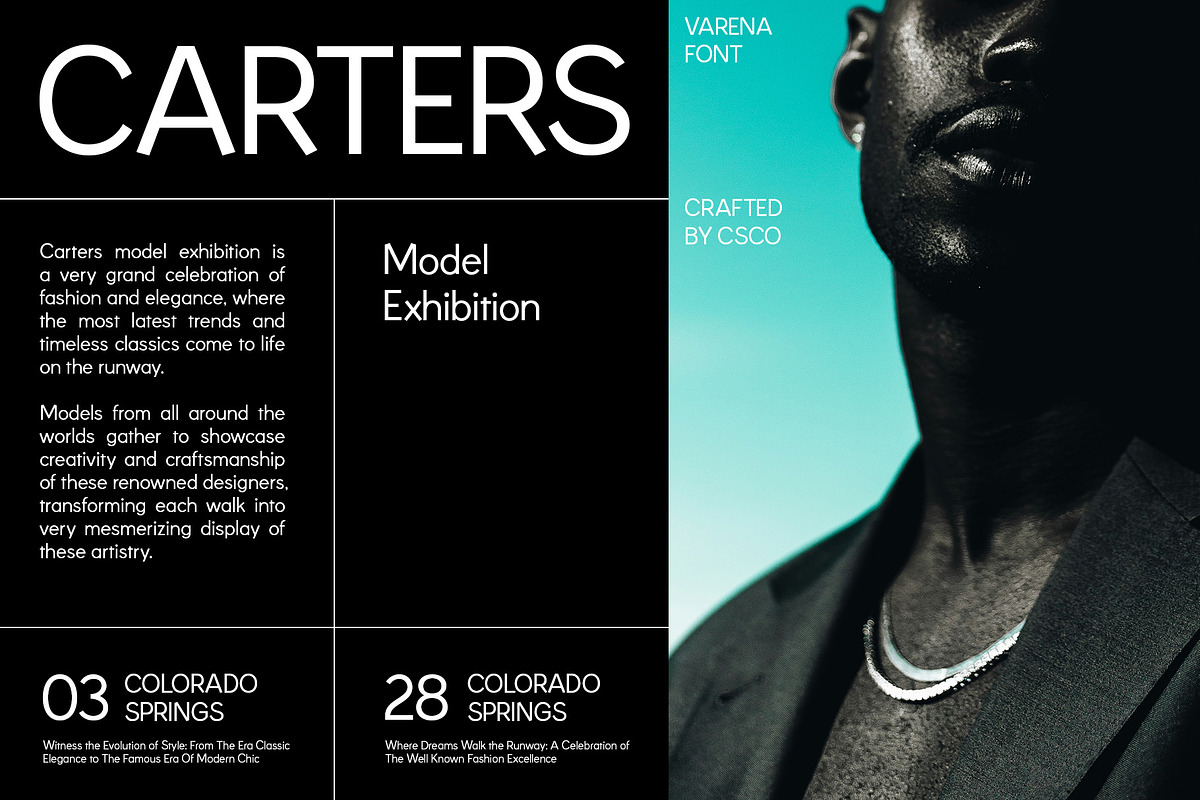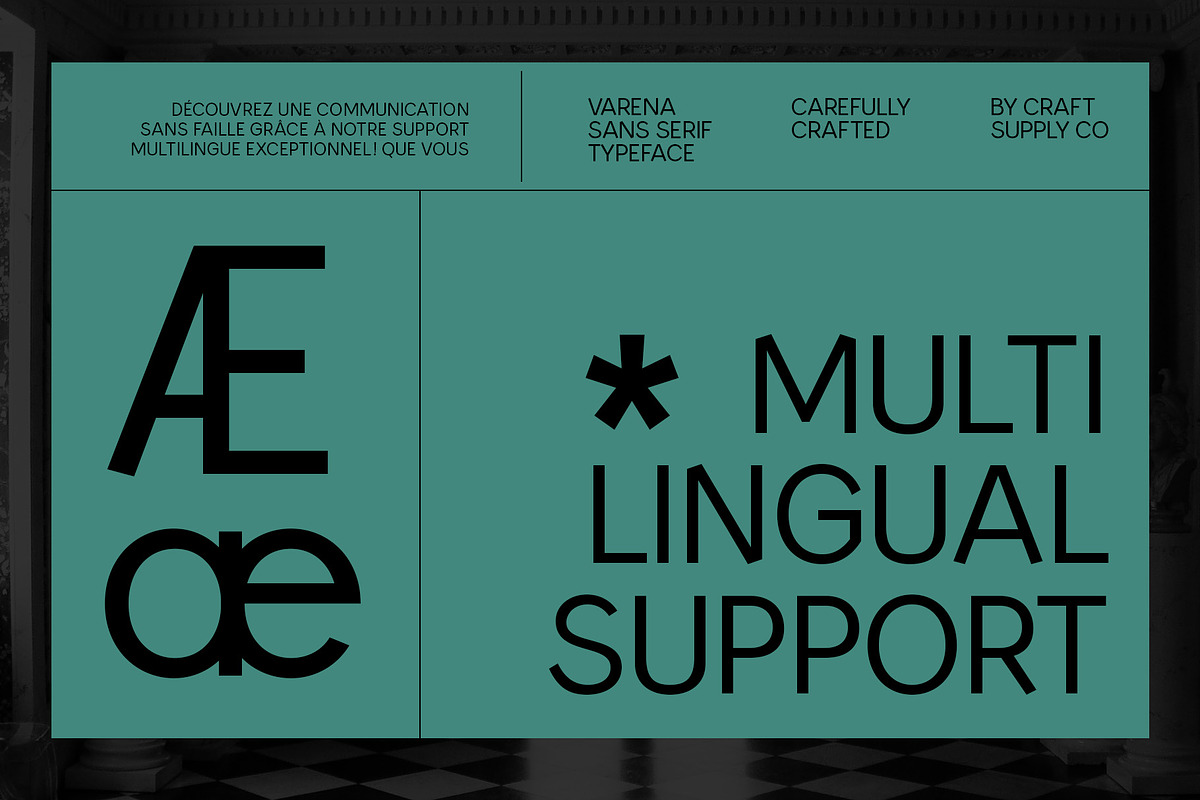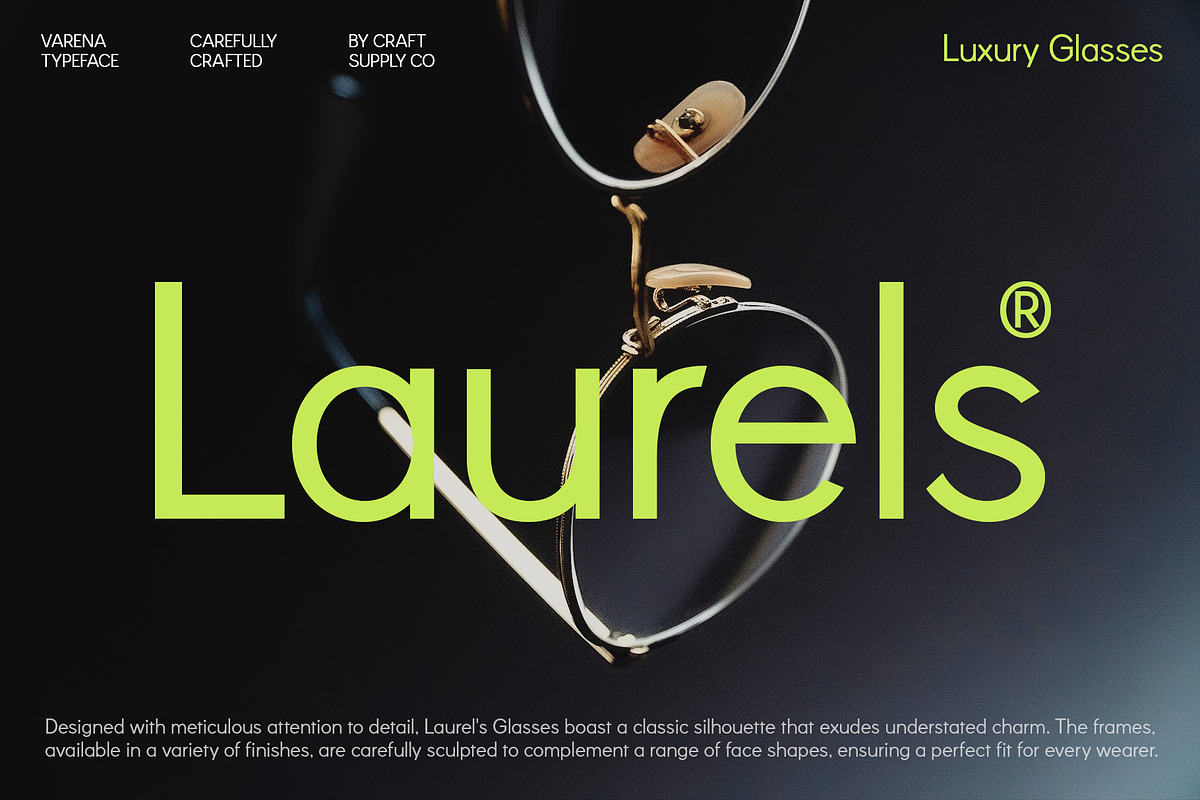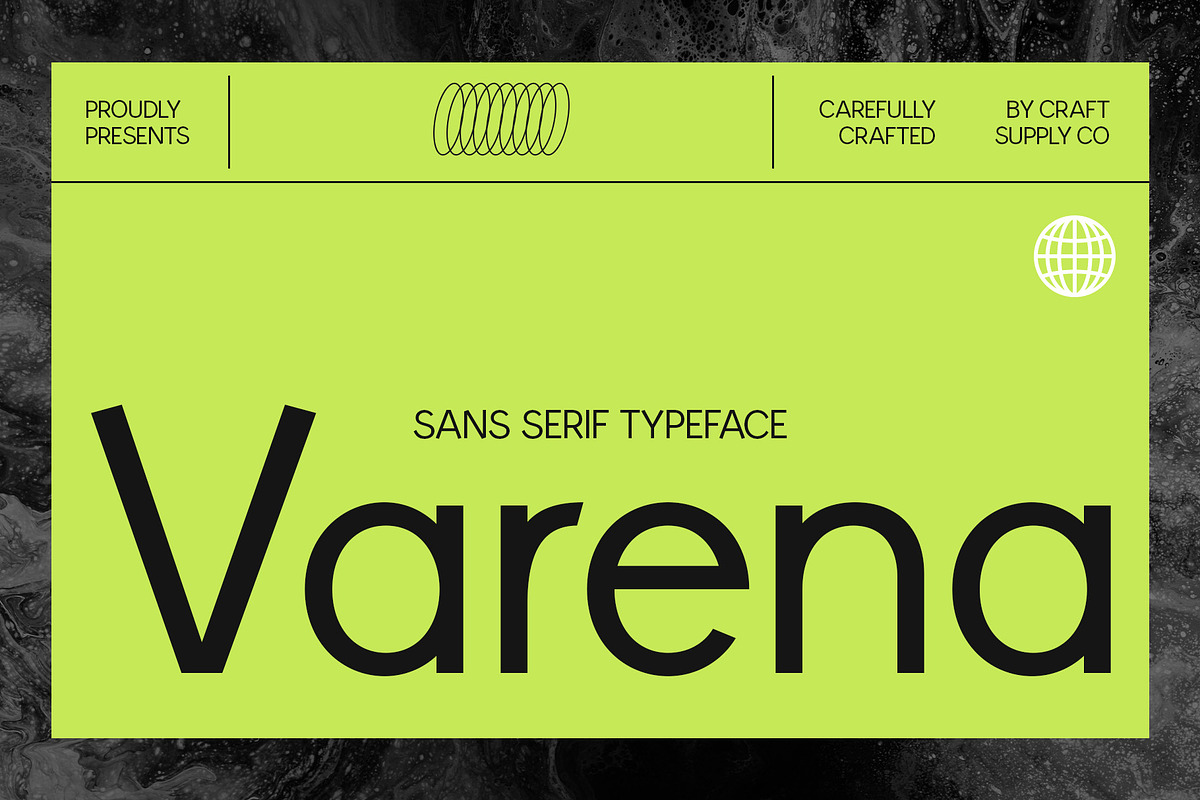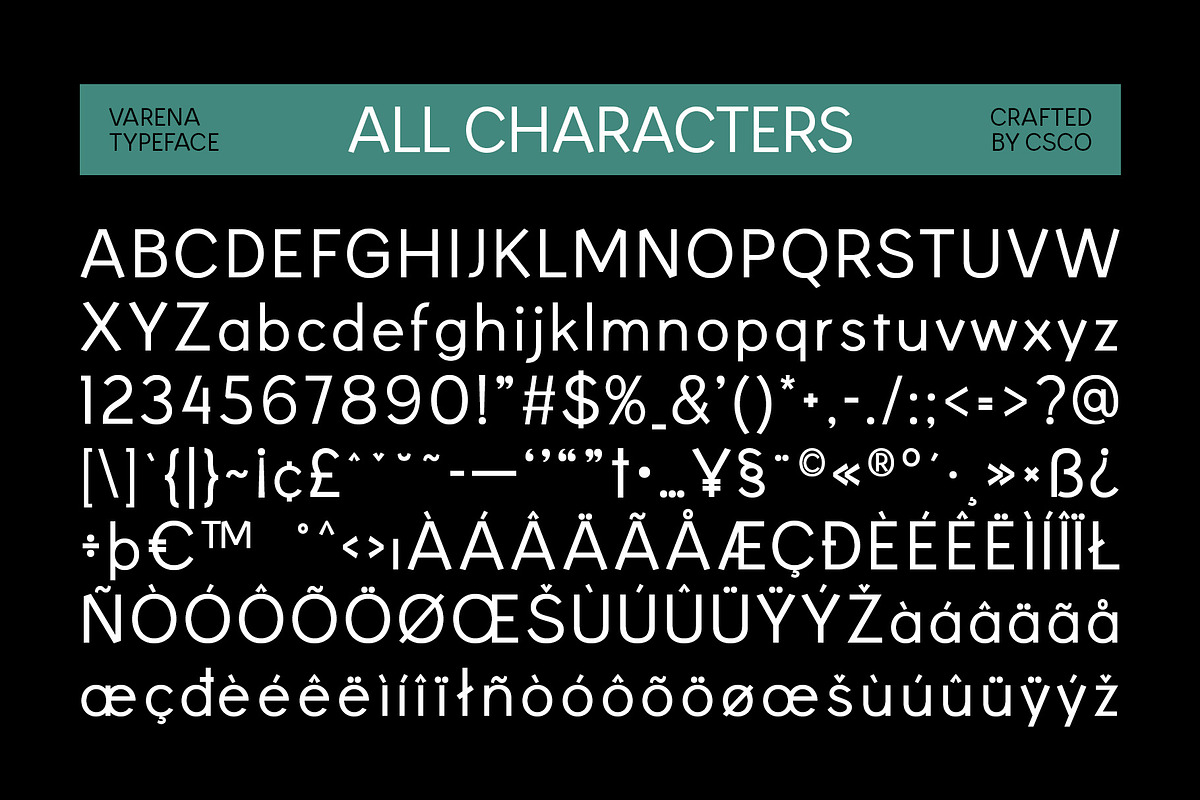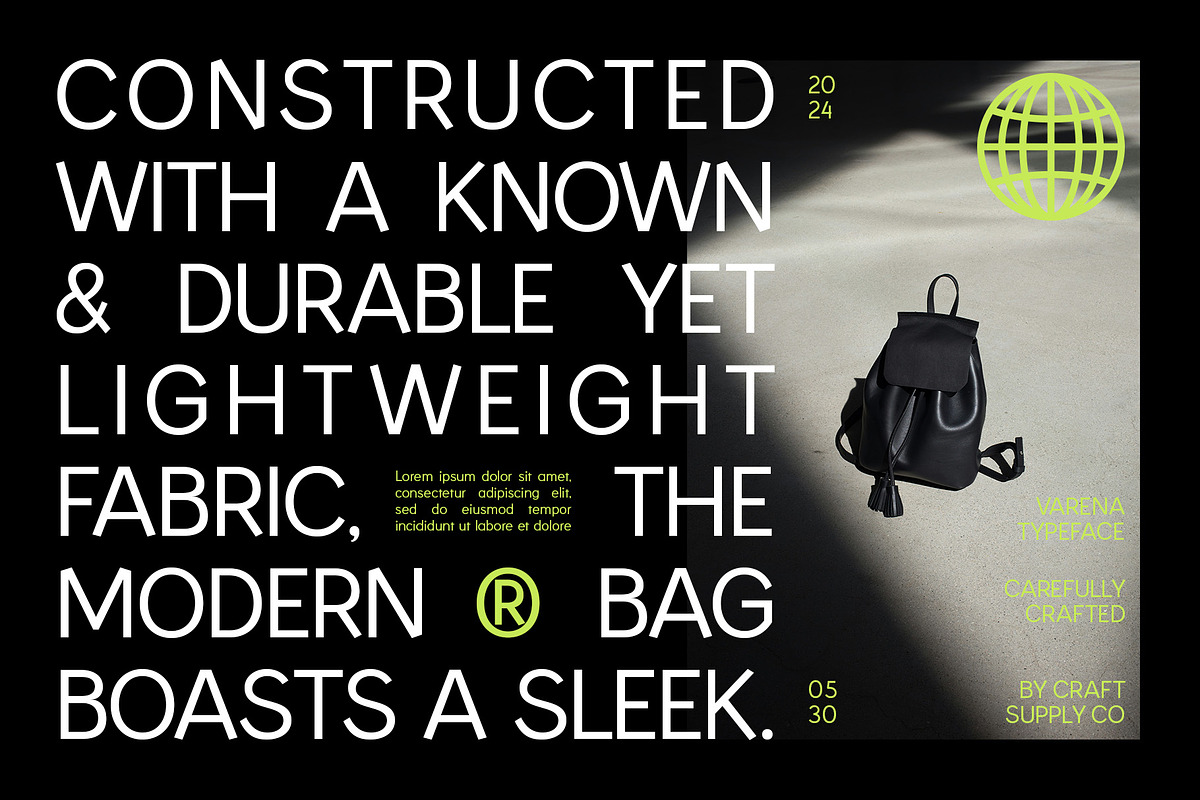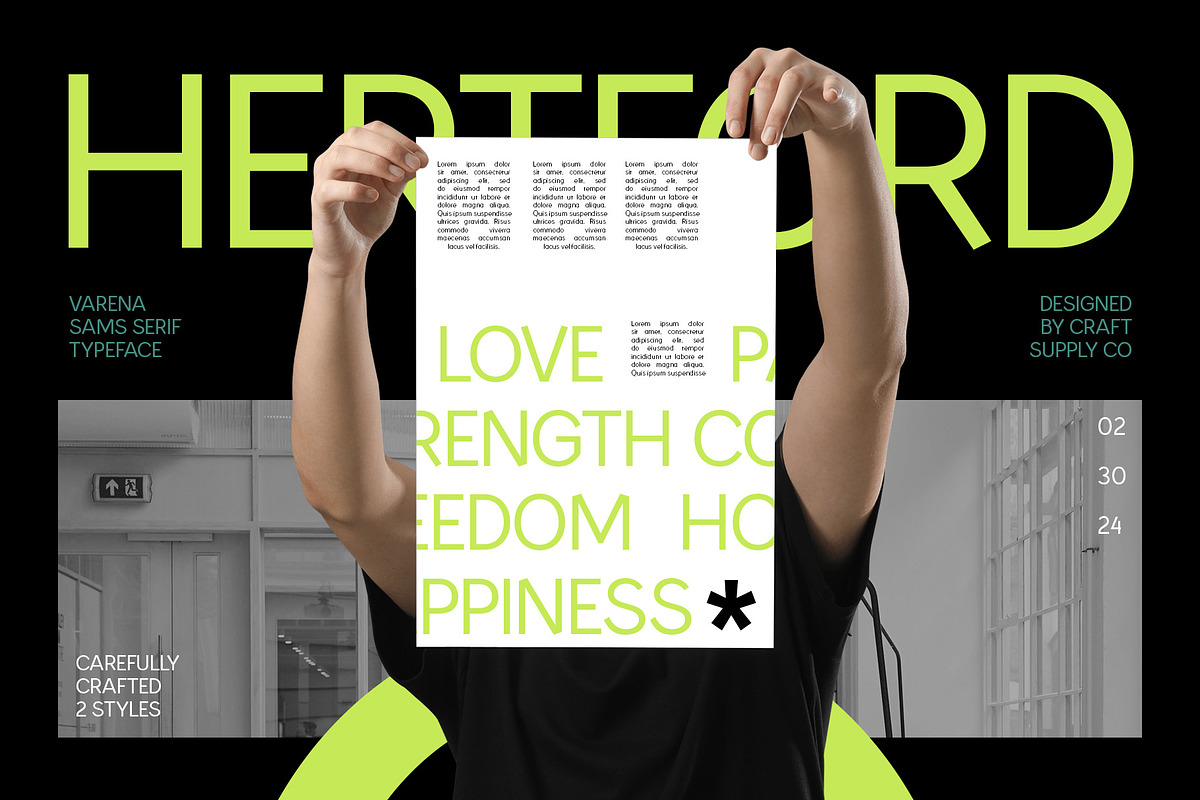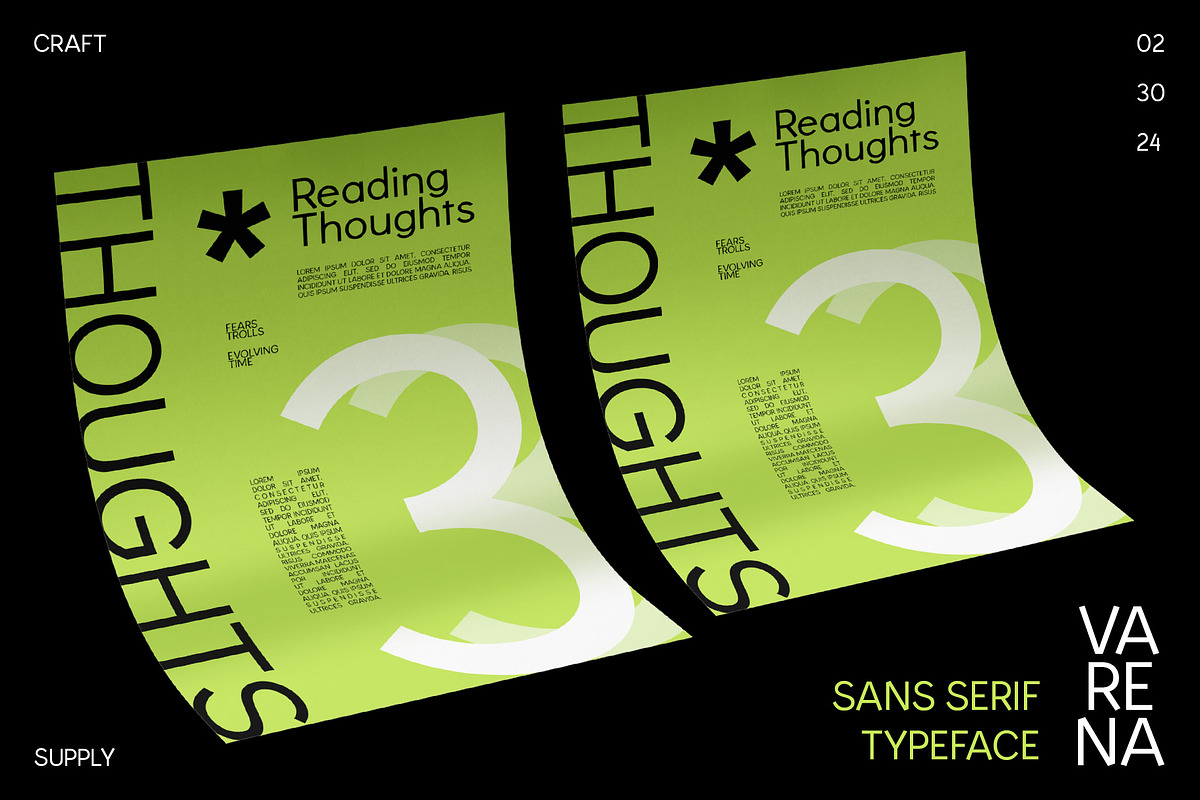
Varena – Sans Serif Typeface
Varena: Where Modern Meets Professional
Modern Professional Sans
Varena is a sans serif font that seamlessly blends modern aesthetics with professional functionality. Its clean lines and contemporary design make it a versatile choice for a wide range of design applications, from corporate branding to digital displays.
Modern Design for Professional Use
Varena font’s minimalist yet refined details set it apart from traditional sans serif fonts. Its modern design conveys a sense of sophistication and professionalism, making it an excellent choice for projects that require a sleek and contemporary look.
Perfect for Professional Displays
Whether you’re designing a corporate website or crafting a professional presentation, this font is designed to impress. Its modern style and professional appeal ensure that your message is conveyed with clarity and authority, making it perfect for displays that demand attention.
Versatile and Easy to Use
Despite its modern appearance, this font is incredibly versatile and easy to use. It works well in both large and small sizes, making it suitable for a variety of applications, from headlines and banners to body text and more. With its blend of modern design and professional style, Varena font adds a touch of sophistication to any project.
Ideal for Corporate Branding
Varena font’s clean and contemporary design makes it an ideal choice for corporate branding. Whether used in logos, marketing materials, or signage, Varena conveys a sense of modernity and competence that is sure to leave a lasting impression.
- Varena Regular
- Varena Italic